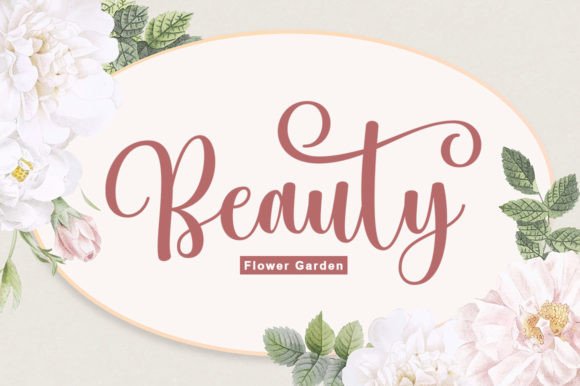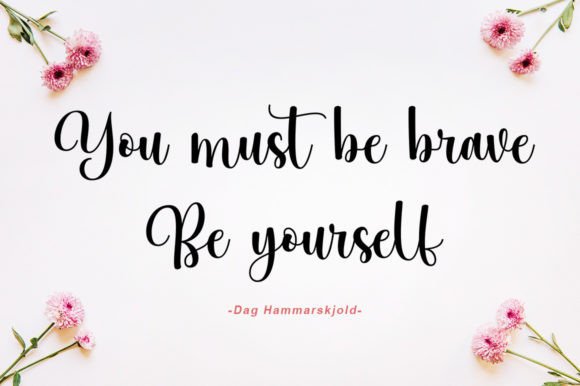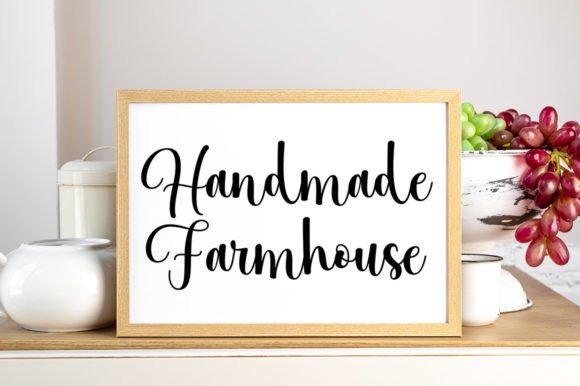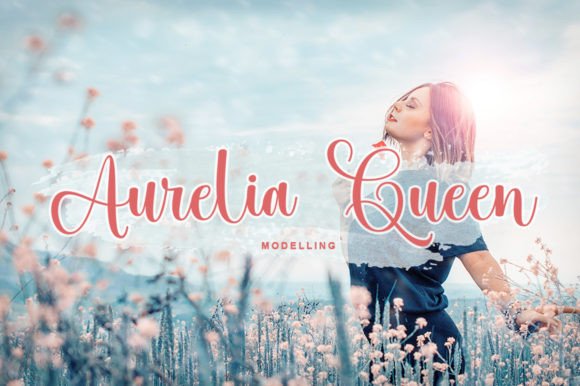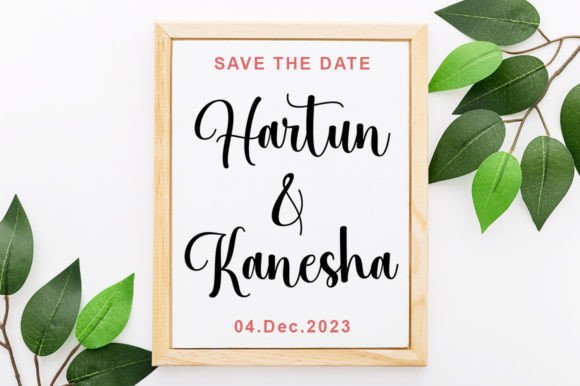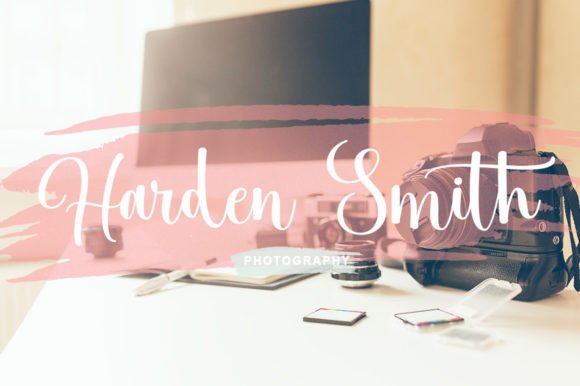
Introduction to History Script Font
Have you ever been in the midst of a creative project, pouring your heart and soul into every detail, only to feel like something’s missing? That’s when the perfect design resource can make all the difference. For designers seeking to elevate their work, the History Script Font is a game-changer. This exquisite handwritten font masterfully combines classy calligraphic influences with a fresh, contemporary feel.
With its PUA encoded glyphs and ligatures, you’ll be able to access every element with ease, whether you’re working on a project with a transparent background or a high-quality print design. Whether you’re a seasoned pro or just starting out, the History Script Font is sure to become a favorite. In this article, we’ll dive into the world of this stunning font and explore why it’s a must-have for any designer looking to take their creative projects to the next level.
Key Features of History Script Font
- High-quality, elegant script font perfect for creative projects, available as a free download.
- Comes in a transparent background design resource, allowing for easy customization and blending with other elements.
- Includes a range of ligatures and swashes, adding a touch of sophistication to any design.
- Designed at a large size (1024px) and high resolution (300 DPI), making it ideal for use in large-scale designs and prints.
- Unique characteristics include subtle texture and subtle imperfections, giving the font a hand-written feel.
- Perfect for use in invitations, signage, and other creative projects where a touch of elegance is desired.
Honest Review: History Script Font
I’ve been using the History Script Font in my design projects for a while now, and I must say it’s a great resource to have. It’s a high-quality font that can add a touch of elegance and sophistication to any creative project.
- Beautiful script design that’s perfect for titles and headings
- High-resolution font files ensure that the text remains crisp and clear, even when scaled up
- Works well with transparent backgrounds, making it easy to use in designs with a lot of texture and depth
- Not suitable for body text, as it can be a bit difficult to read in smaller sizes
- Limited language support, so it may not be the best choice for projects that require a wide range of languages
Overall, I’m really impressed with the History Script Font. It’s a great addition to any designer’s toolkit, and it’s free to download, which is a bonus. I’d definitely recommend it to anyone looking for a high-quality script font for their creative project.
Use the History Script Font for creative projects that require a vintage or antique feel. Experiment with different font sizes, colors, and styles to achieve a unique look. You can also combine the font with other design elements for a more visually appealing effect.
The History Script Font is commonly used in design projects such as wedding invitations, historical documents, and creative logos. Its high-quality design and transparent background make it an ideal choice for any creative project.